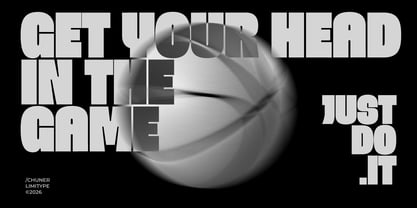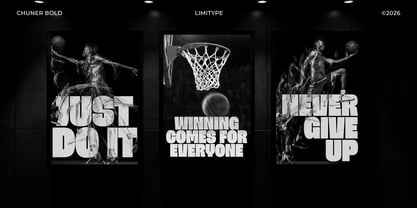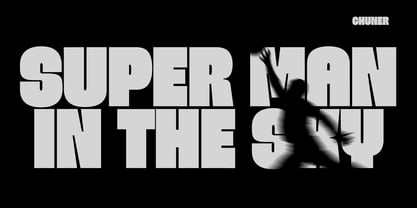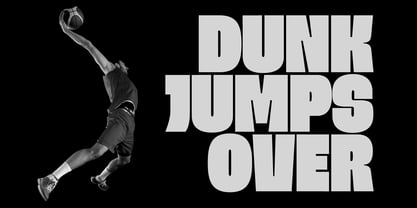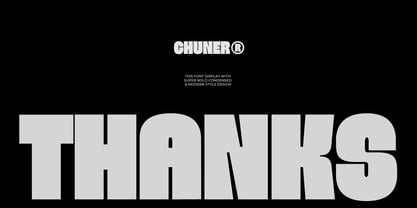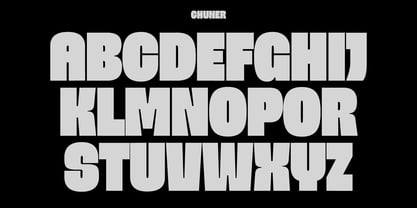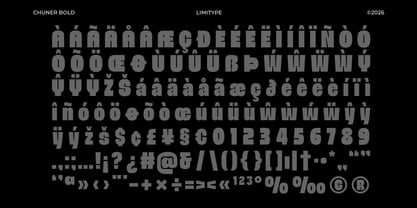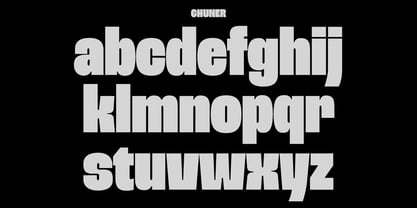
Chuner
by limitype
The Chuner Font Family was designed by Muhammad Muammar, Furqan Sudirman and published by limitype. Chuner contains 1 styles.
Chuner is a bold font with a sporty style designed to create a strong, dynamic, and energetic visual appearance. Its firm and modern character makes it highly suitable for design needs such as branding, logos, posters, and digital content that aims to stand out and look powerful. Chuner delivers a strong and competitive sporty impression, making it an ideal choice for designs that require high impact and aggressive visual appeal. Chuner available with: Uppercase Lowercase Number Symbol Multilingual
Designers: Muhammad Muammar, Furqan Sudirman
Publisher: limitype
Foundry: limitype
Design Owner: limitype